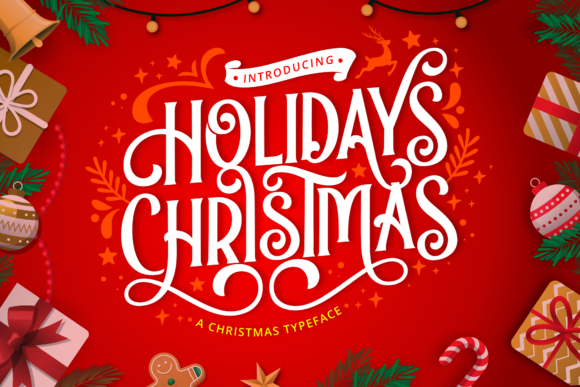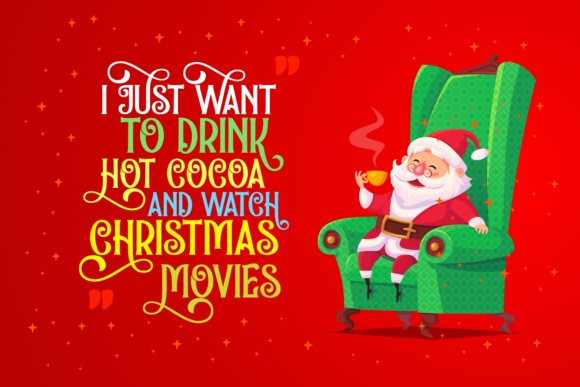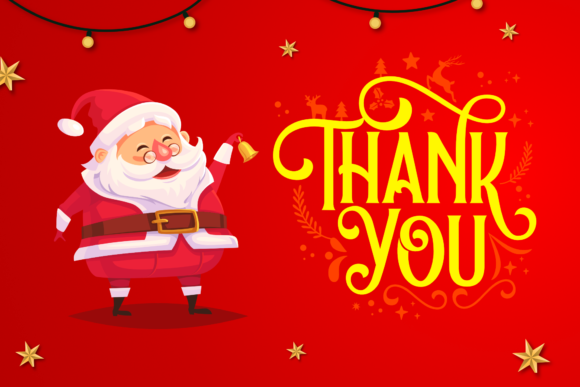
The Magic of Winter Design: Unleashing the Holidays Christmas Font
As the snowflakes gently fall outside your window, and the fireplace crackles to life, you can’t help but feel the excitement of the holiday season. It’s the perfect time to get creative, and what better way to do that than with a beautiful font that captures the essence of winter wonder?
Enter the Holidays Christmas Font, a stunning display font that embodies the spirit of the season. Designed to bring your winter-themed projects to life, this font is perfect for adding a touch of elegance and sophistication to your designs. Whether you’re creating holiday cards, gift tags, or social media graphics, the Holidays Christmas Font is an invaluable asset for any designer looking to make a lasting impression.
Holidays Christmas Font Key Features
- Unique Characteristics: Custom-designed, festive, and elegant script font with a touch of nostalgia
- Character Set: Supports a wide range of languages, including Latin, Cyrillic, and Greek
- Font Style: Script, elegant, and festive, perfect for holiday-themed designs, invitations, and cards
Holidays Christmas Font Review
Overall, I think the Holidays Christmas Font is a lovely addition to any holiday-themed design project. ✨ Its playful and whimsical feel immediately evokes a sense of festive cheer, making it perfect for projects like greeting cards, posters, and social media graphics.
- The font’s unique and intricate design elements add a touch of sophistication and elegance to the overall aesthetic. ✨
- The font is highly customizable, allowing users to adjust the color, size, and spacing to suit their specific design needs.
- The font is also relatively easy to read, even at smaller font sizes, making it suitable for a wide range of applications.
- The font may not be suitable for formal or professional projects, as its playful design may come across as too casual or immature.
- The font’s intricate design elements may be difficult to read or understand for some users, particularly those with visual impairments.
Overall, I would recommend the Holidays Christmas Font for projects that require a fun, festive, and playful aesthetic. However, it’s essential to consider the target audience and intended use before selecting this font for a design project.
The Holidays Christmas Font is perfect for creating festive holiday designs, such as:
- Christmas cards and invitations
- Holiday party decorations and signage
- Winter-themed social media graphics
Remember to experiment with different font sizes, colors, and styles to get the most out of this festive font.
Copperplate is a elegant and luxurious font, ideal for high-end holiday designs. It features intricate details and ornate flourishes, making it perfect for invitations, greeting cards, and packaging. Compared to Holidays Christmas Font, Copperplate has a more vintage and sophisticated feel.